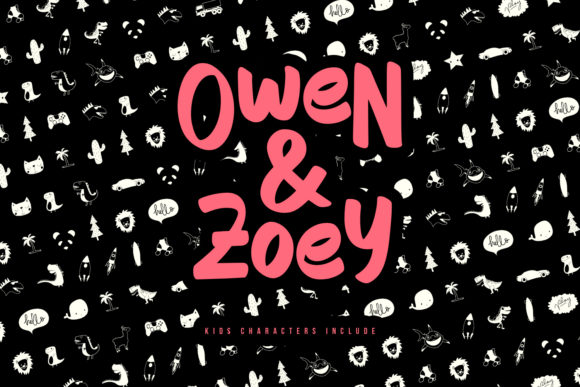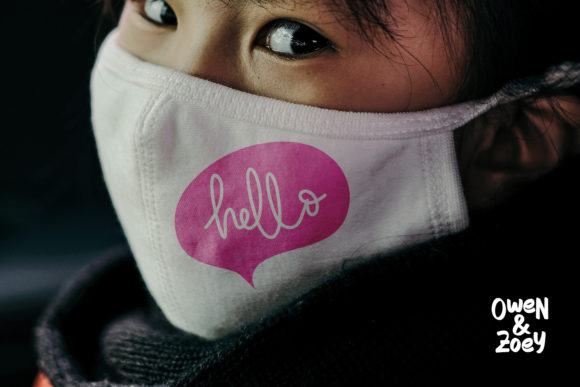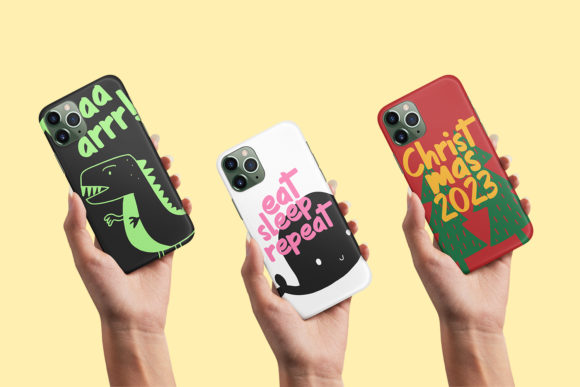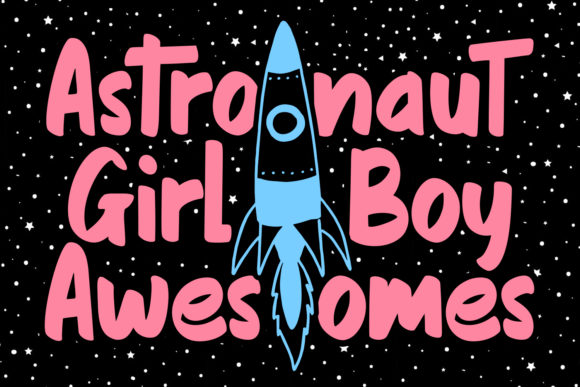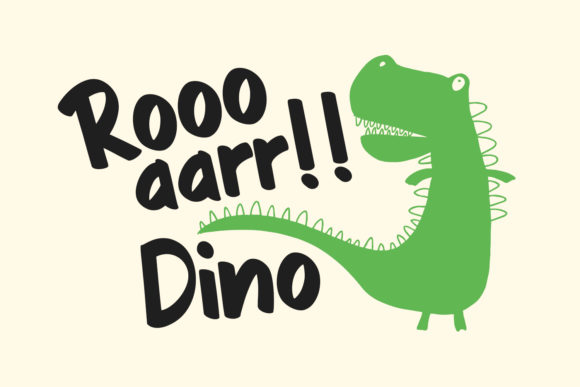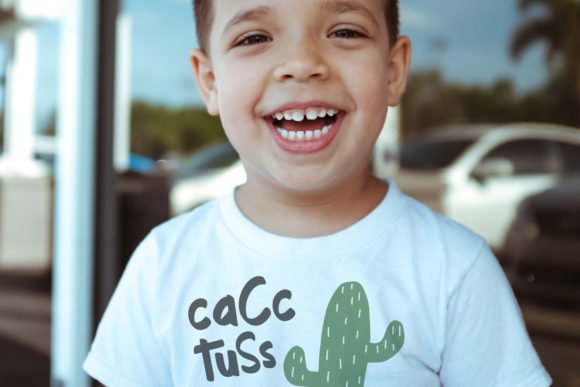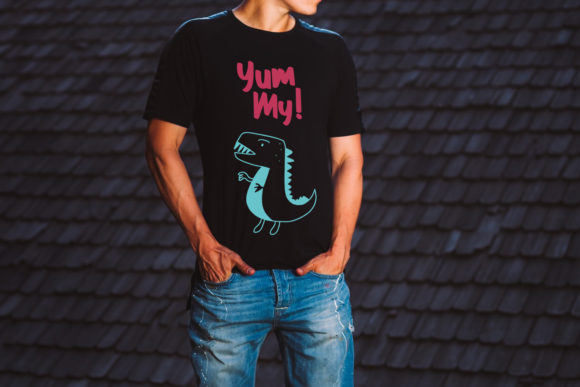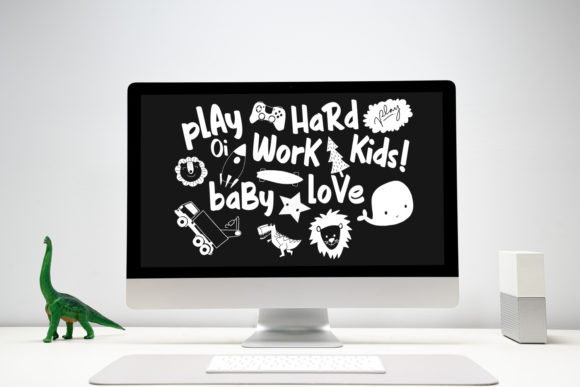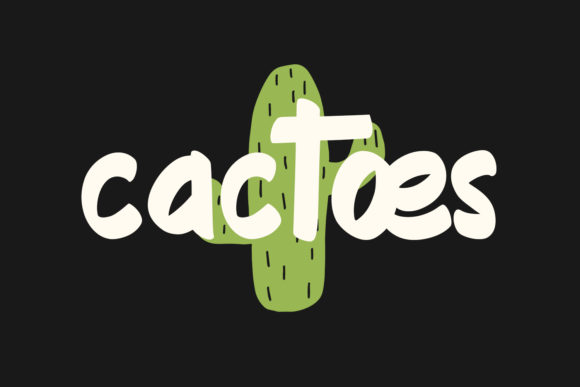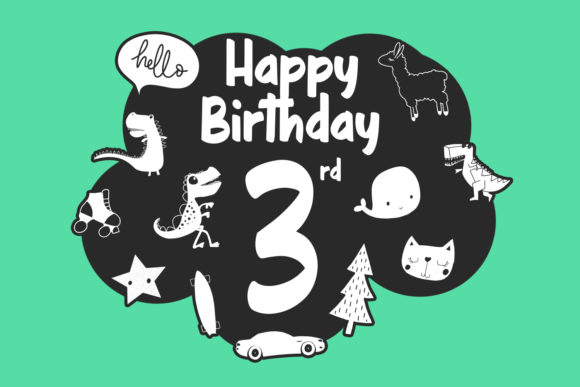
Owen Zoey Font
About Owen Zoey Font
Owen Zoey is a cute and quirky handwritten font, made to brighten up every school and kids project. Get creative with this font’s sweet and neat style and create spectacular designs.